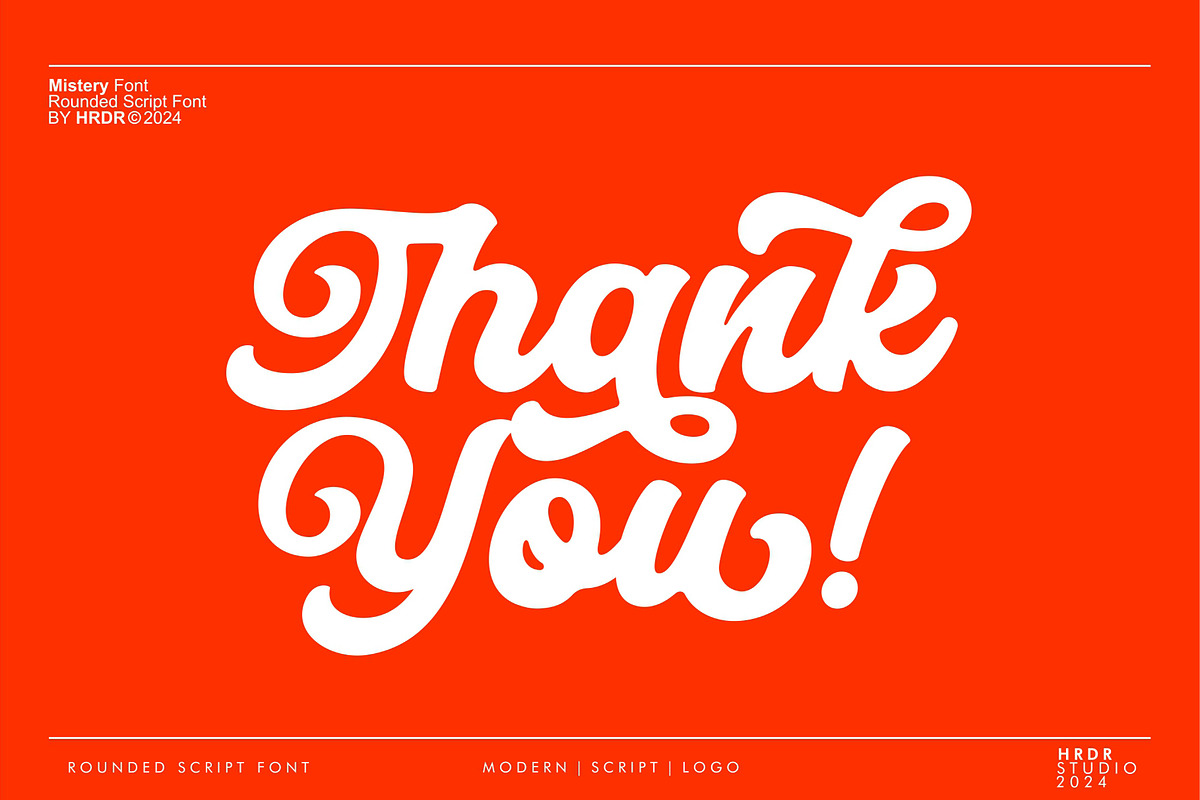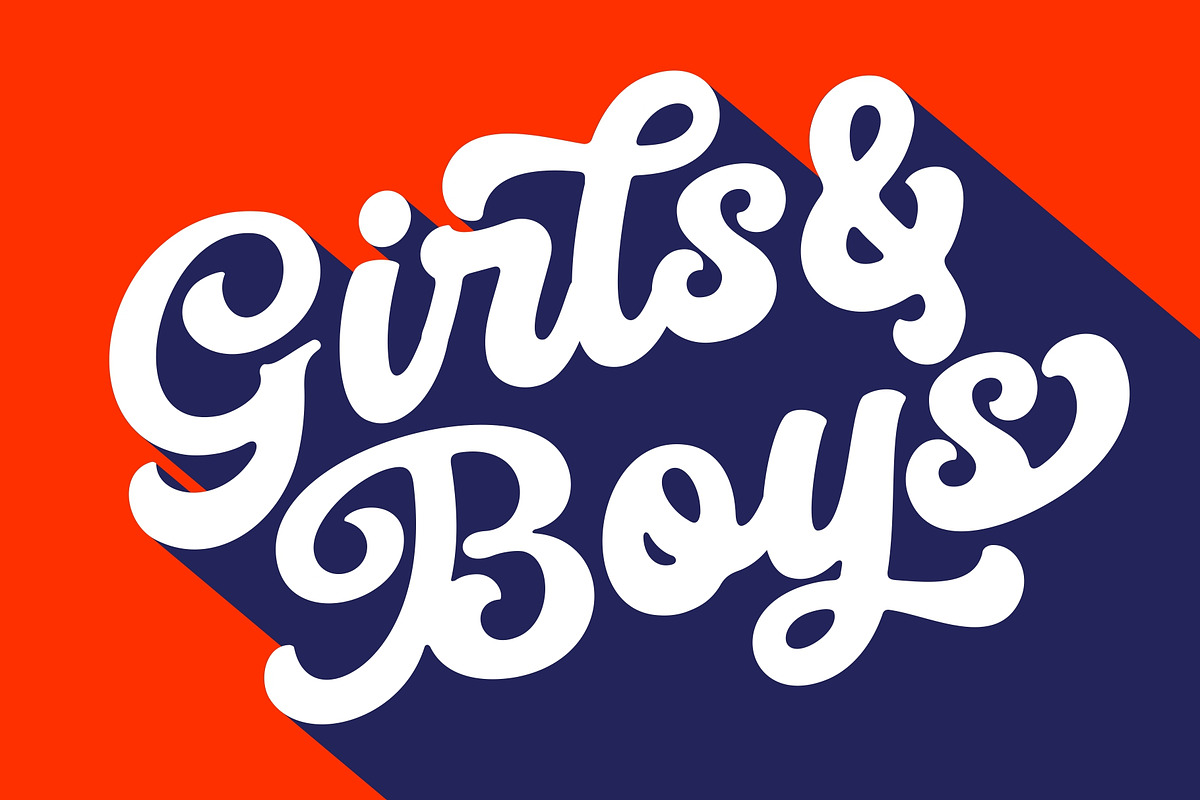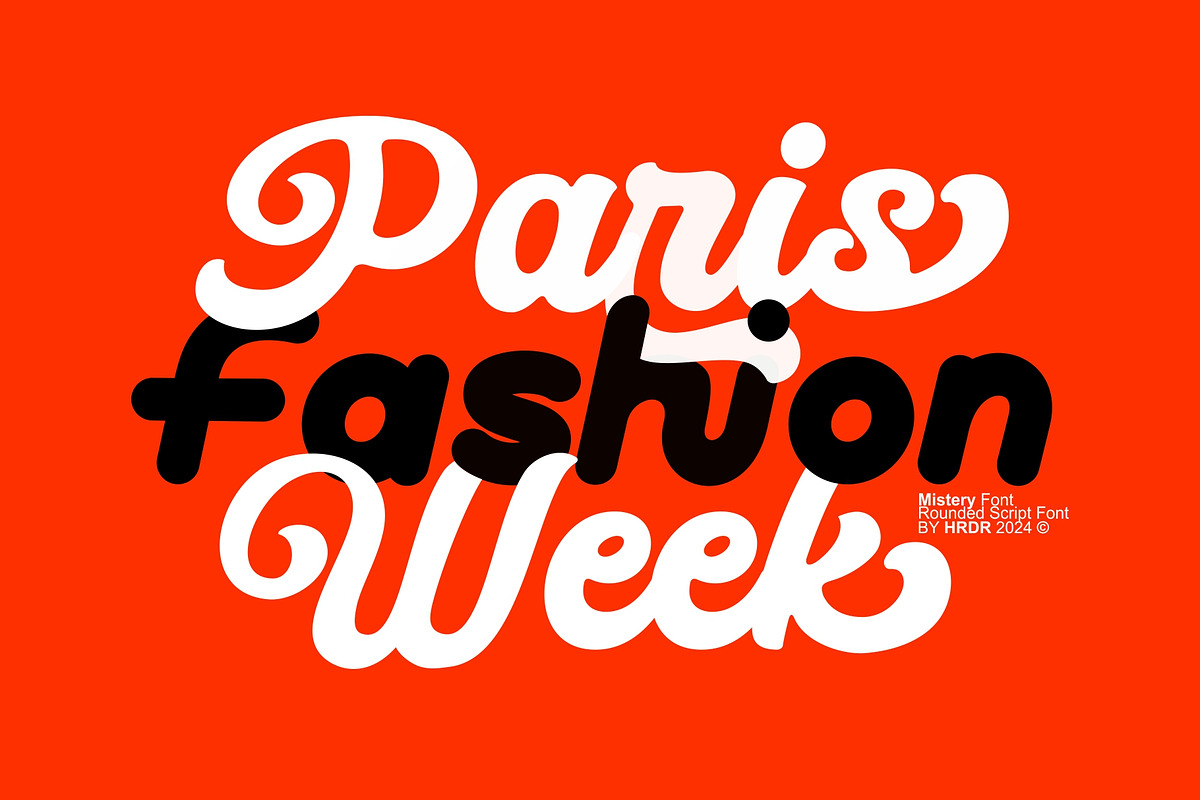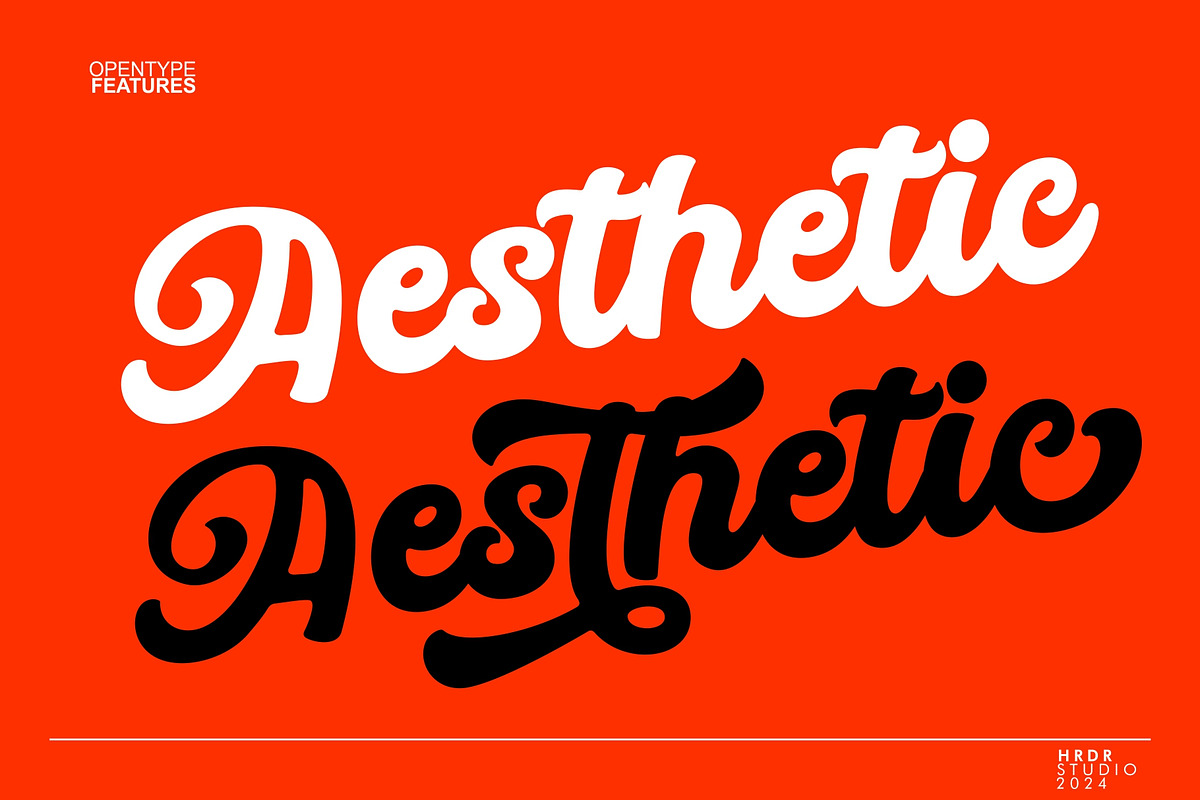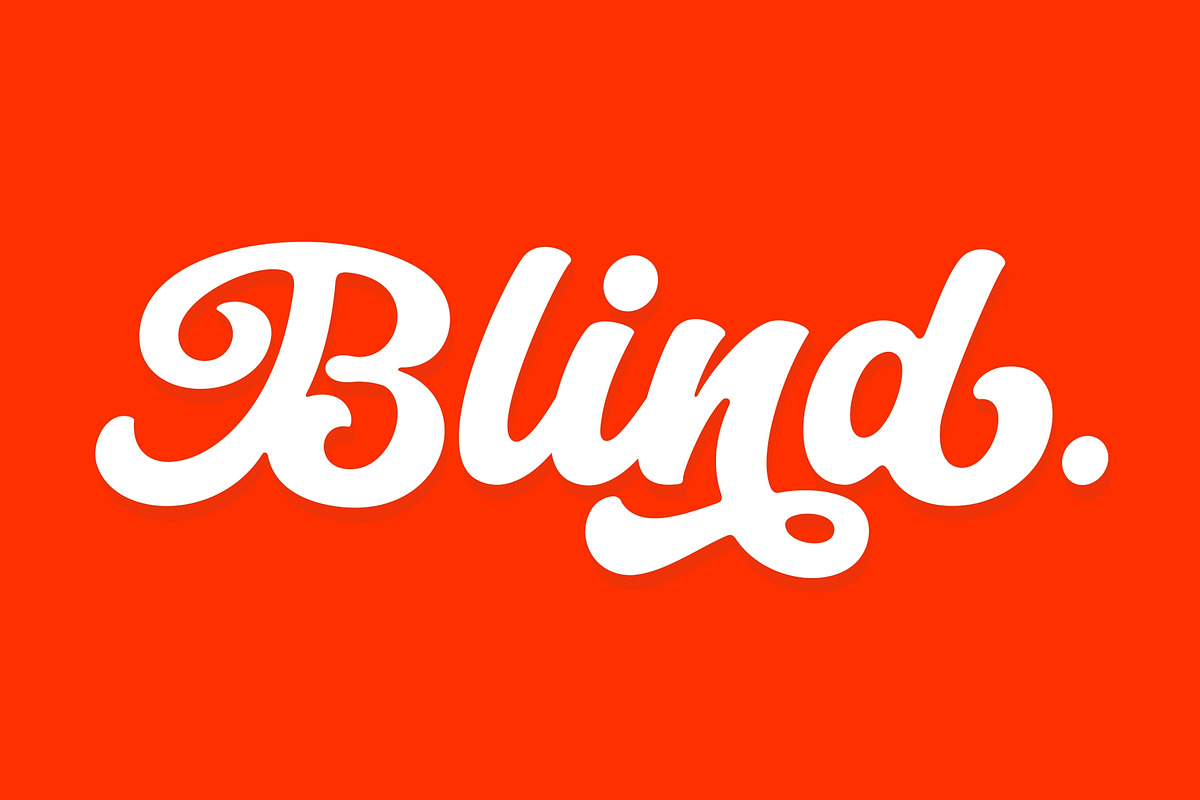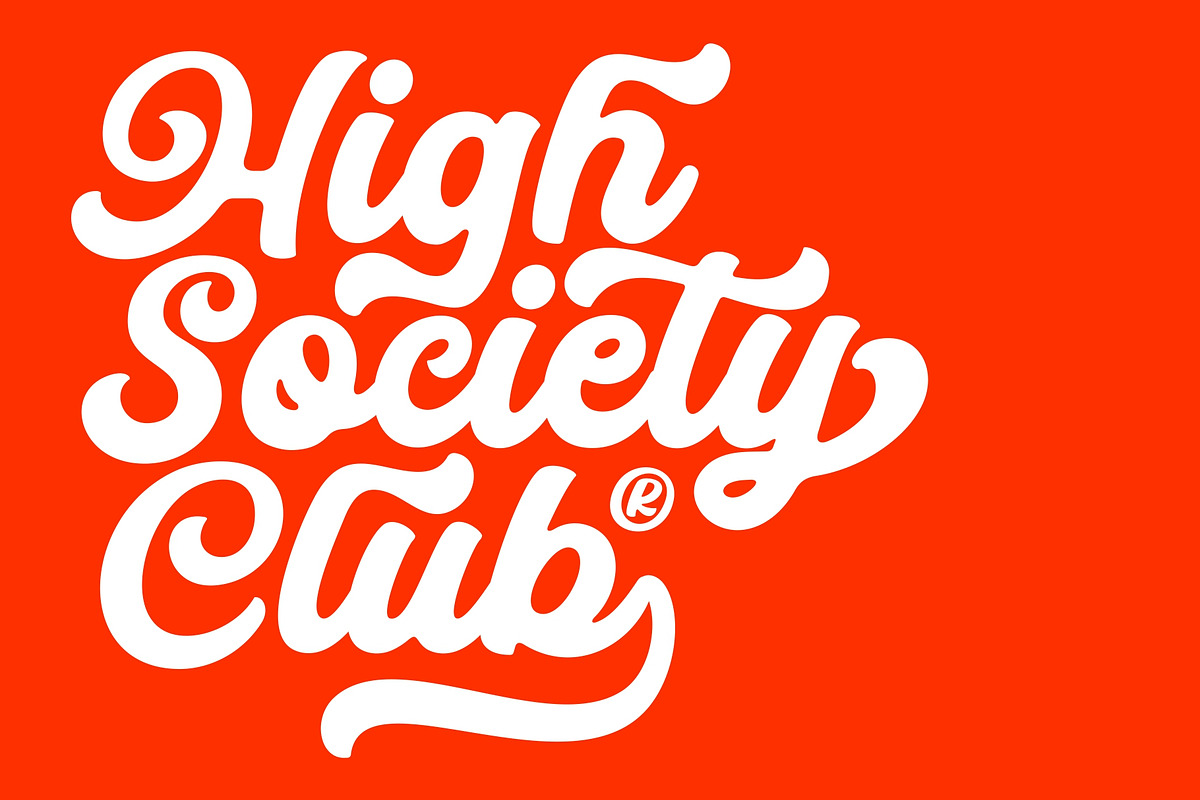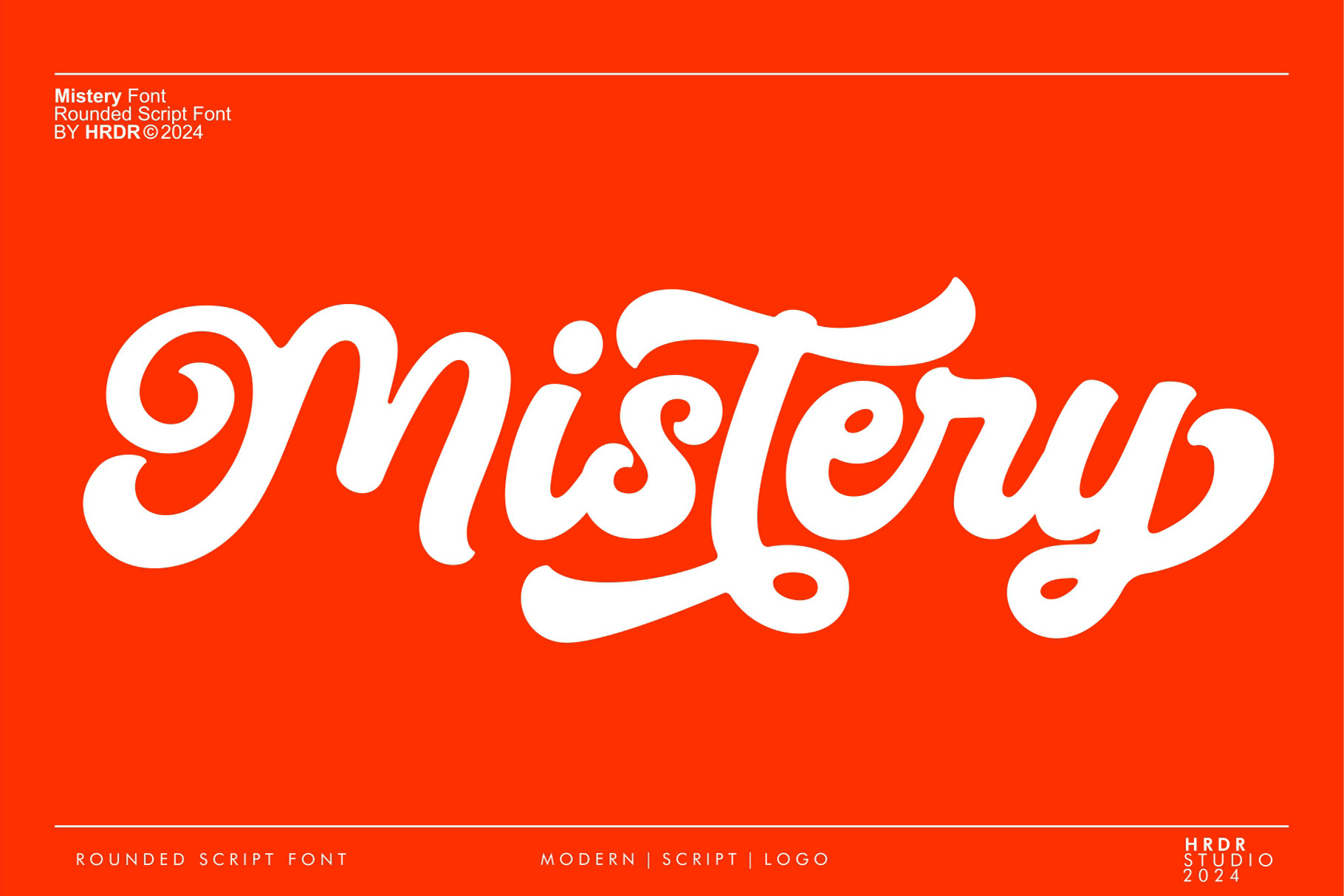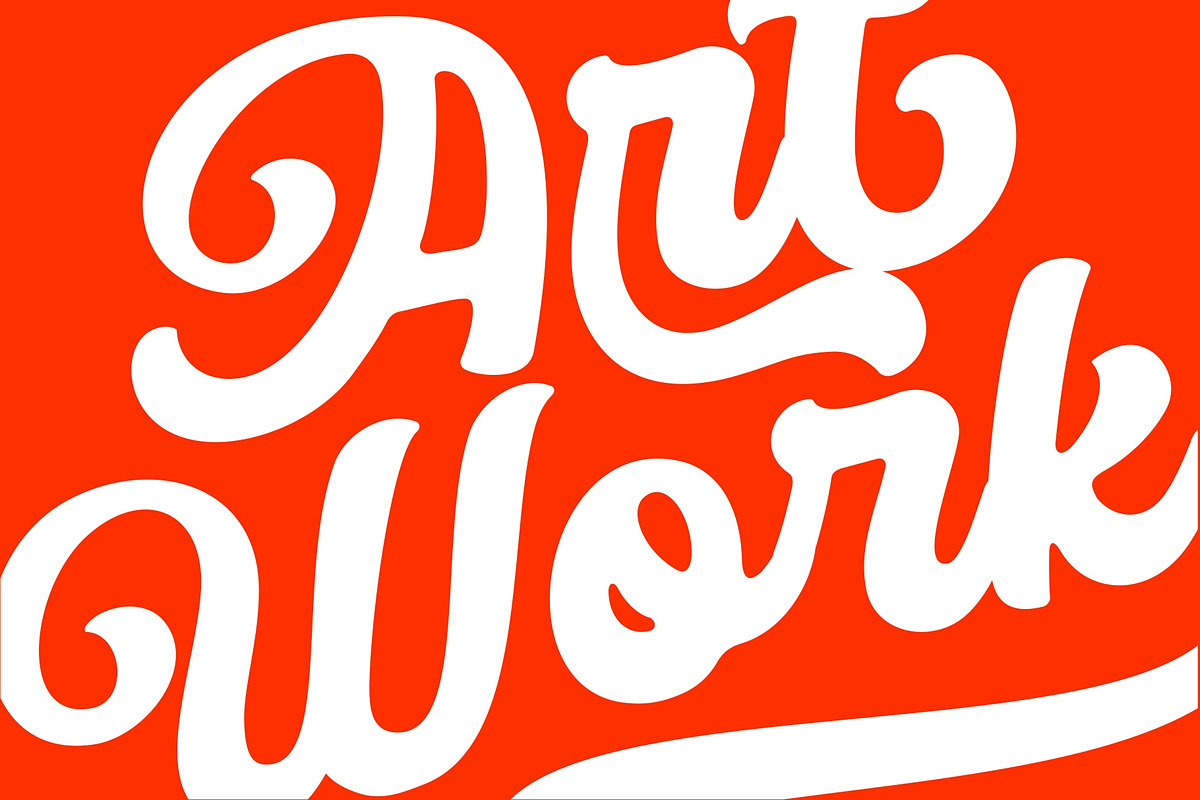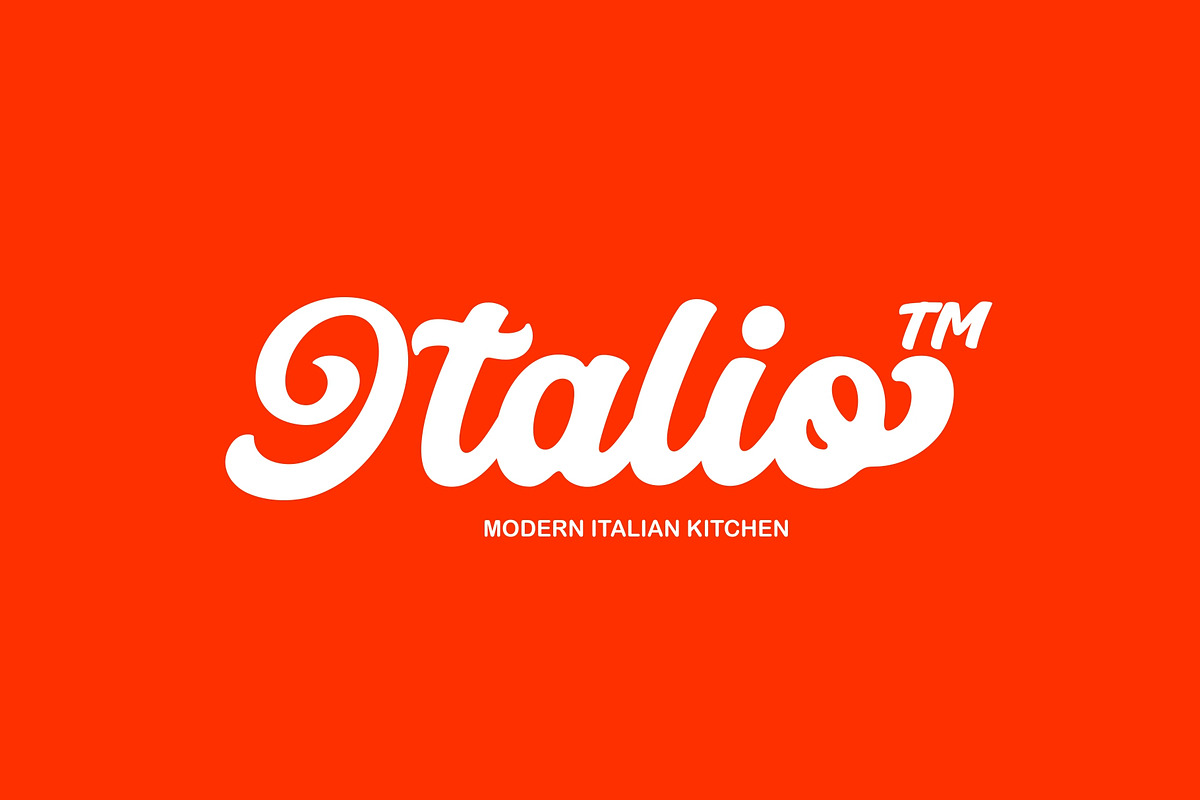
Mistery - Rounded Script Font
"Meets Mistery" is a bold, curvy script font that combines retro charm with elegance. Its handwritten style brings a personal and expressive touch, The font features slightly rounded edges, adding a subtle softness to its otherwise strong and assertive design. making it perfect for designers working on eye-catching headlines, artistic logos, creative branding, and playful posters. The font is ideal for those who want to create a fun and unique impression in their design projects.
Lowercase
numeric & Multilingual support
Stylistic Alternates with Ss01, Ss02, Ss03, Ss04 and Swash